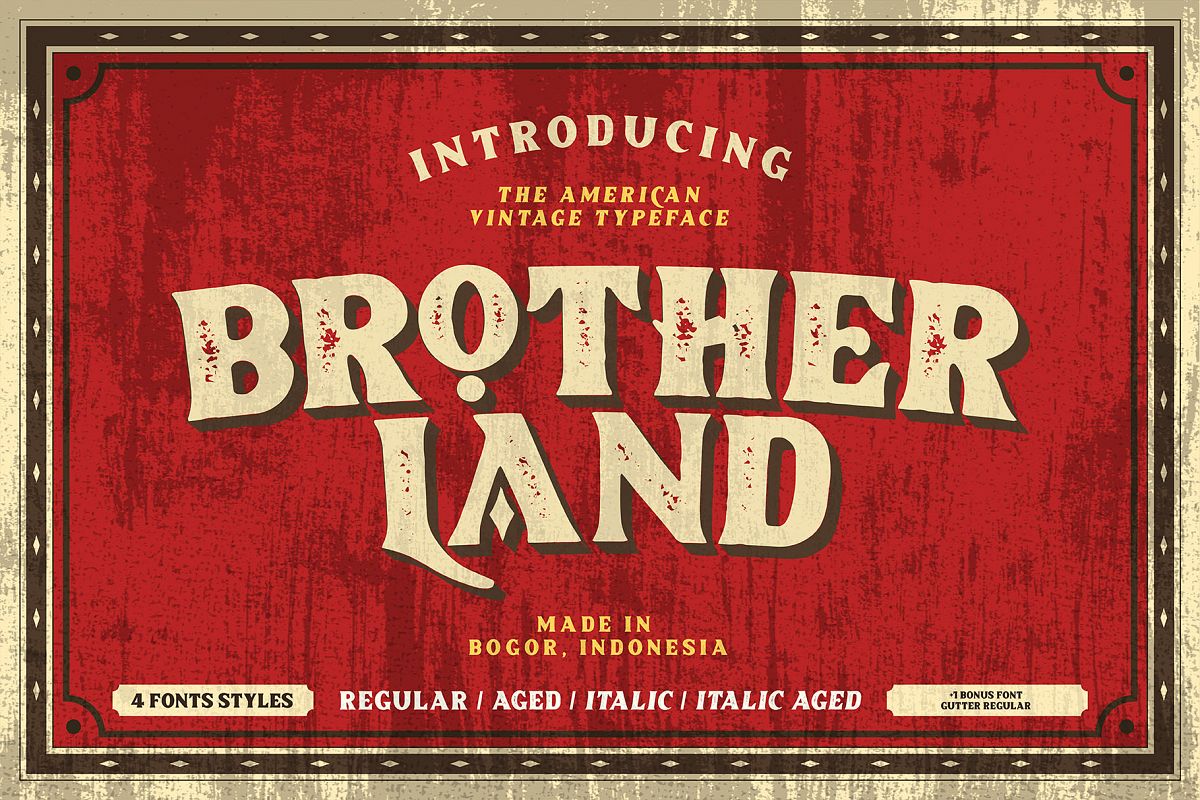
Brotherland - American Vintage
Let me Intoduce my font Brotherland - American Vintage ( 4 Styles + 1 Bonus )
Brotherland is a Handdrawn serif typeface, they have rough and vintage character inspired from American Vintage typography.Brotherland comes with 4 style regular, italic, Aged, Aged italic. Perfect for logos, badges, typography and any vintage design needs.
• All caps character
• Alternate character
• Puntuation & Number
• Multilingual Language